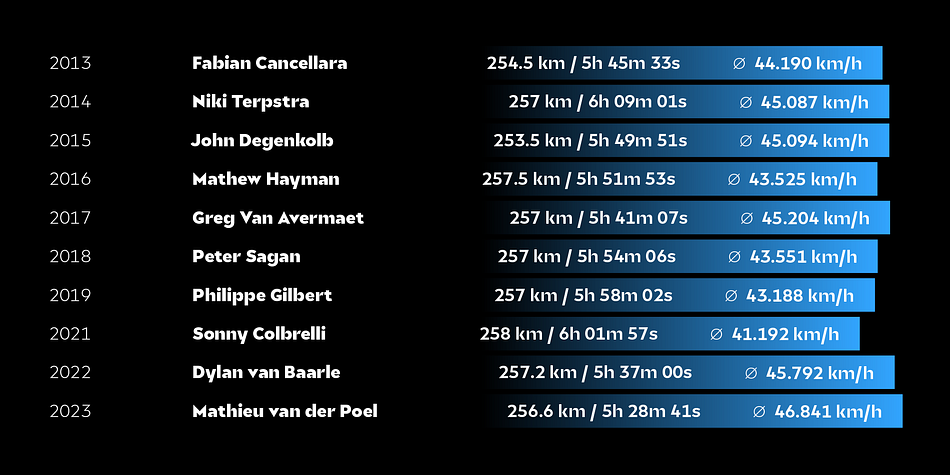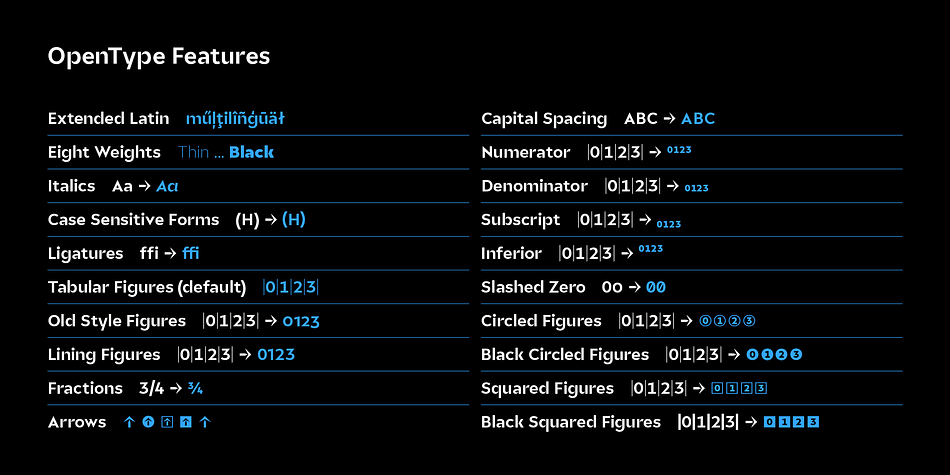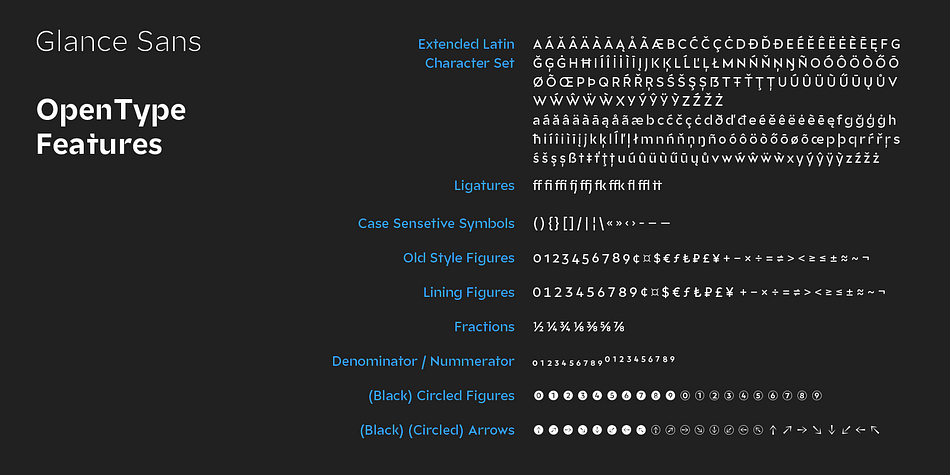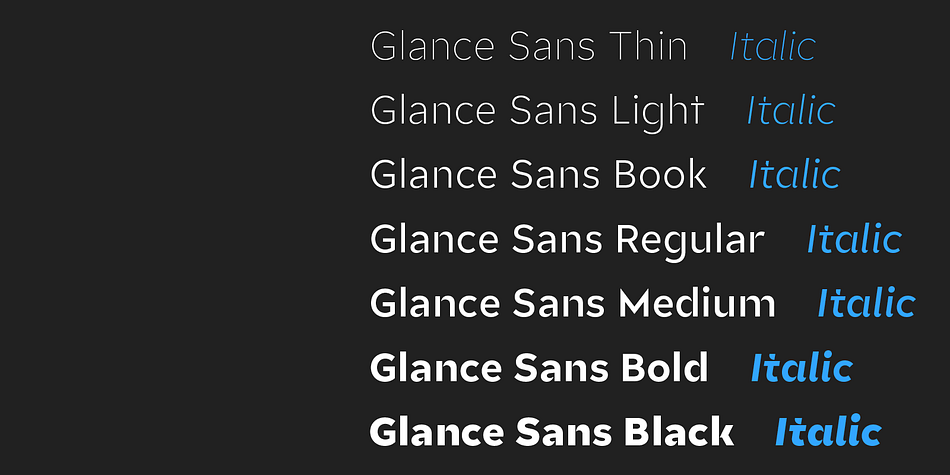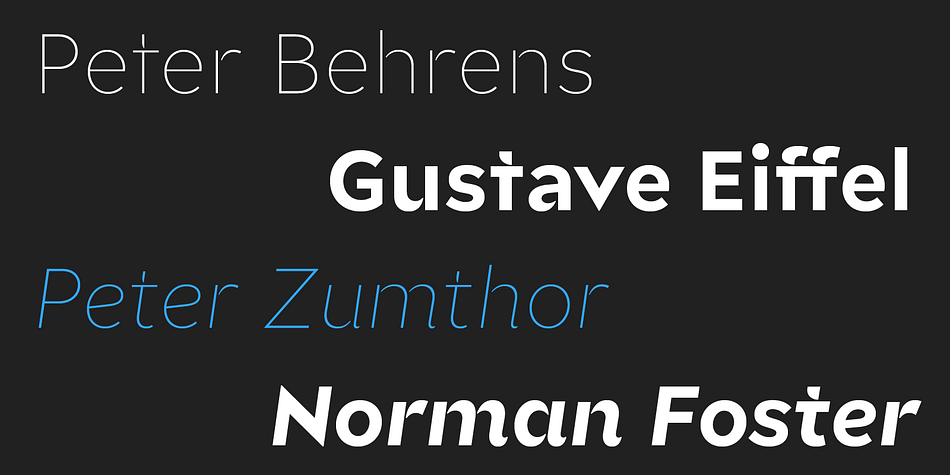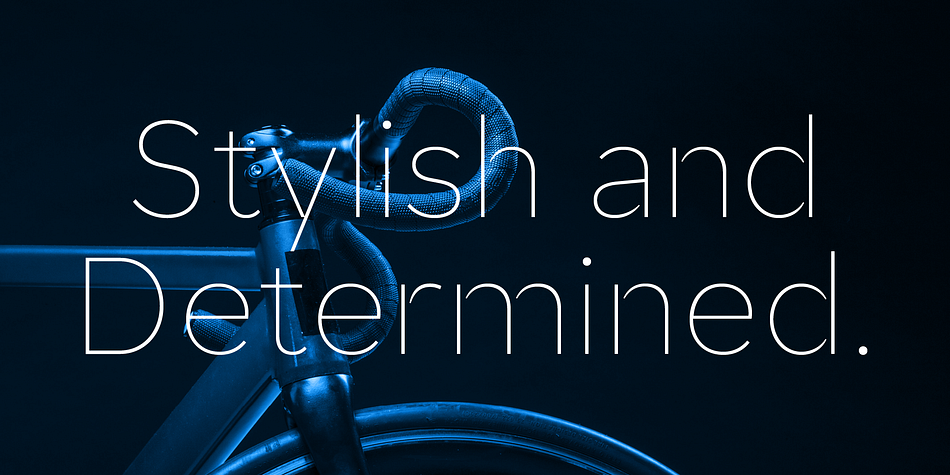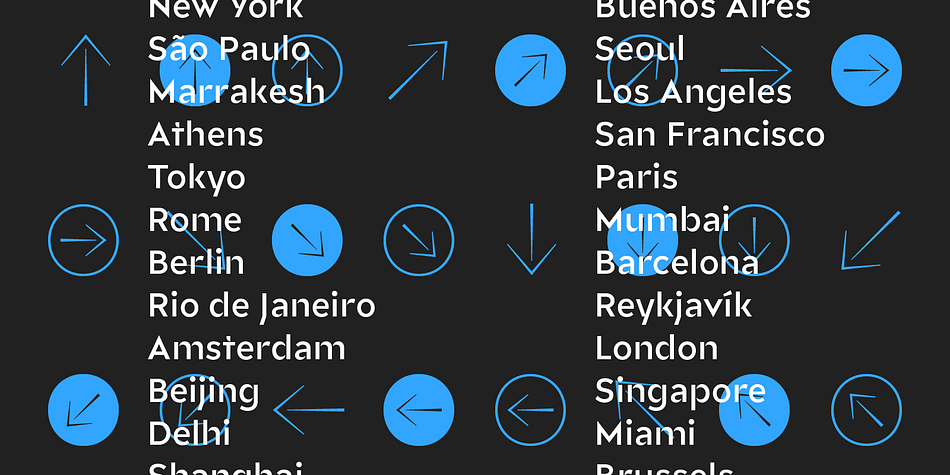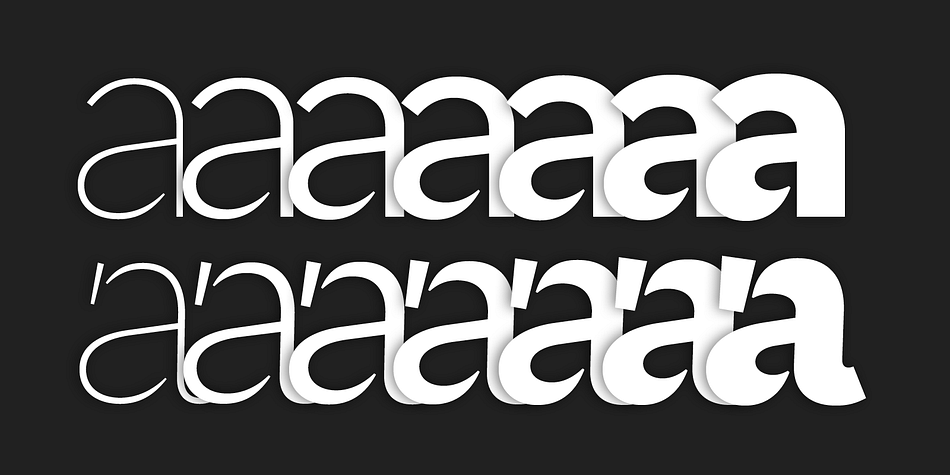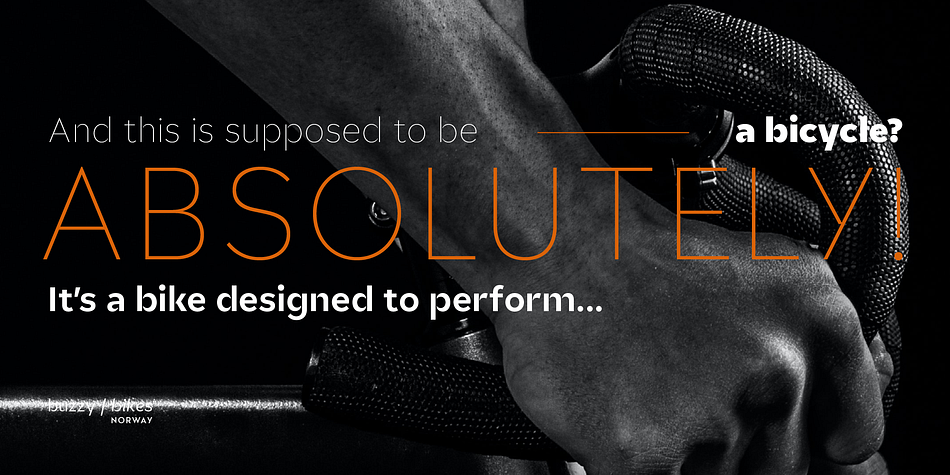
Designed by Moritz Kleinsorge, Glance Sans is a sans serif font family. This typeface has fourteen styles and was published by Identity Letters.
Geometric, stylish, and not quite a stencil face: Glance Sans is the urban alter ego of Glance Slab—a strong-willed sans-serif with no frills but a few unique character traits.
Glance Sans follows the design principle of nonjoining parts that made Glance Slab successful. Some strokes may not connect to their stems, creating visible gaps and thus, a dynamic impression of balance and movement. However, Glance Sans has a calmer appearance due to the lack of detached serifs. If Glance Slab’s home territory are large, crowded stadiums and massive sports events, Glance Sans prefers streetball courts, well-used skate parks, and underground clubs. It also adapts to urban work environments from finance to high-tech. Whenever a more toned-down look is called for while retaining the elegance of an athlete, Glance Sans is ready to roll.
In the city environment, versatility is key. That’s why Glance Sans sports 7 weights as well as a complete set of italics. These are not just sloped romans but individually drawn letterforms, subtly referencing classic italic construction for more effective emphasis. Among the 600+ glyphs of Glance Sans, you’ll find goodies such as six sets of figures, circled numbers, circled arrows, and all kinds of currency symbols in two stylistic versions. Glance Sans is a great tool for industrial and high-tech branding, for wayfinding systems in contemporary or modernist architecture, for corporate identities in arts, crafts, medicine, culture, and education, and for all kinds of sports-themed design.
Both members of the Glance superfamily are easily and effectively combinable; both are able to stand on their own feet. With its powerful italics, you might opt for Glance Sans as your text typeface and use Glance Slab for headlines. Or you set large, clean, display-sized lines in Glance Sans and spice them up with a bit of sportive Glance Slab. It’s up to you to decide how to bring out the best in both of them.